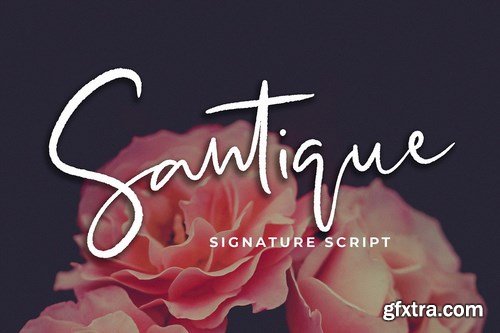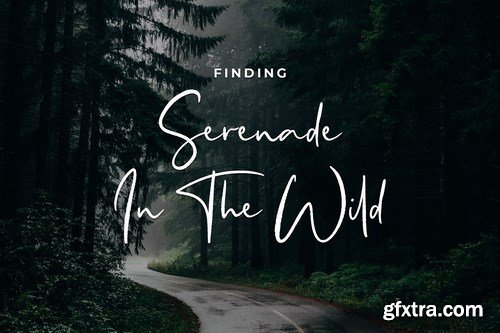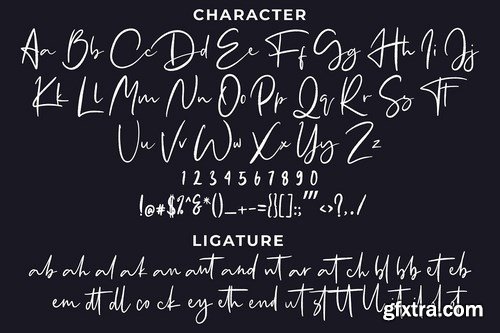
Santique Signature Script Font is a signature script can be used for various purposes such as logos, wedding invitations, t-shirts, letterheads, signage’s, labels, and much more!